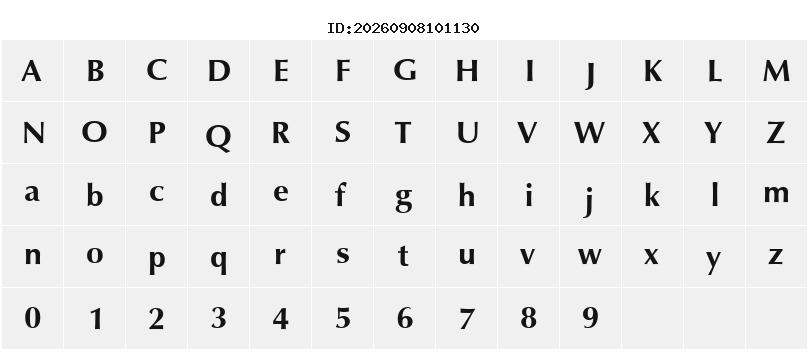
• Font Name: URWClassicoT
• Full Font Name: URWClassicoT Bold
About URWClassicoT.ttf
URWClassicoT.ttf is a modern, elegant sans-serif font designed for ultimate readability and visual harmony. Perfect for branding, headlines, web design, and print materials.